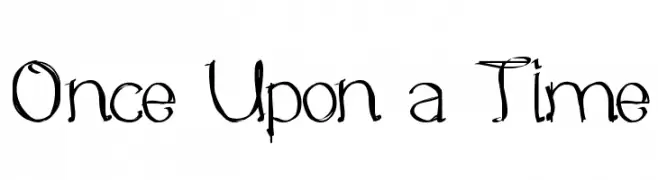
A whimsical, decorative font with intricate swirls and flourishes, perfect for fantasy themes.
( Fonts by Dennis Ludlow - Sharkshock Productions )
A bold, adventurous font with sharp, angular edges, perfect for dramatic themes.
( Fonts by Jens R. Ziehn - www.filmhimmel.com )
A bold, playful font with a rugged, adventurous style.
( Fonts by www.floodfonts.com )
A bold, adventurous font with a nautical theme, featuring sharp edges and flowing curves.
( Fonts by www.floodfonts.com )
A bold, adventurous font with a rugged, hand-drawn appearance.
( Fonts by Albertine Nerevan - albertinenerevan.blogspot.com )
A whimsical, decorative font with intricate swirls and flourishes.
( Fonts by Peter S. Baker )
A medieval-inspired font with bold, intricate characters and a historic flair.
( Fonts by Christopher Hansen )
A whimsical, decorative font with intricate swirls and a vintage, storybook feel.
( Fonts by Steve Ferrera )
A bold, adventurous font with sharp serifs and a distressed appearance, perfect for pirate-themed projects.